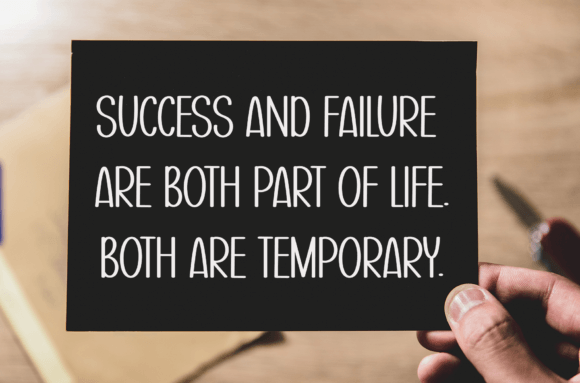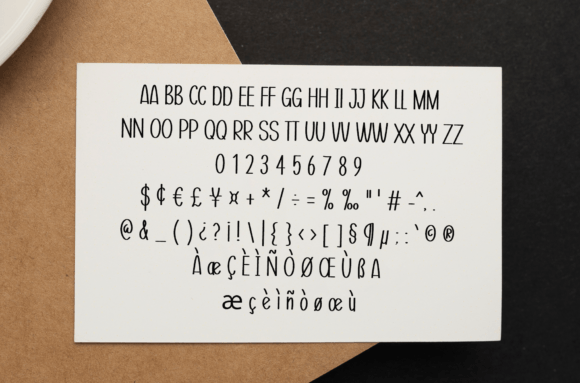
Introduction to Interior Finishing Font
Interior Finishing is a cool and modern handwritten font.
Whether youโre using it for crafts, digital design, presentations, or creating greeting cards, this font has the potential to be your go-to font, whatever the occasion .
Key Features of Interior Finishing Font
Why Choose Interior Finishing Font?
Interior Finishing Font offers exceptional quality and versatility, making it a valuable addition to your design toolkit. Whether you’re creating for personal projects or commercial use, Interior Finishing Font delivers professional results.